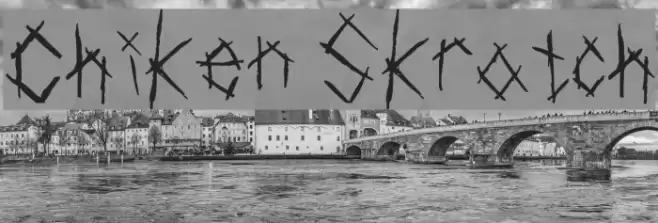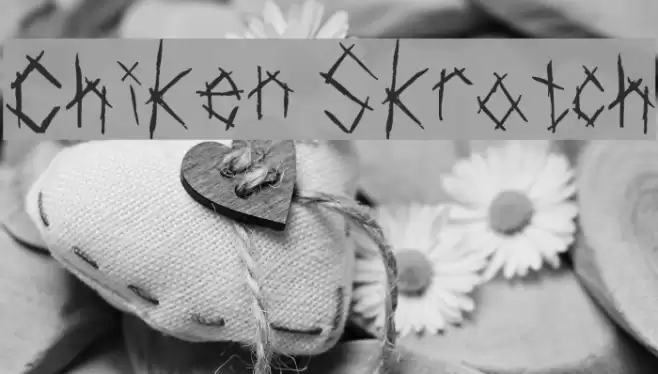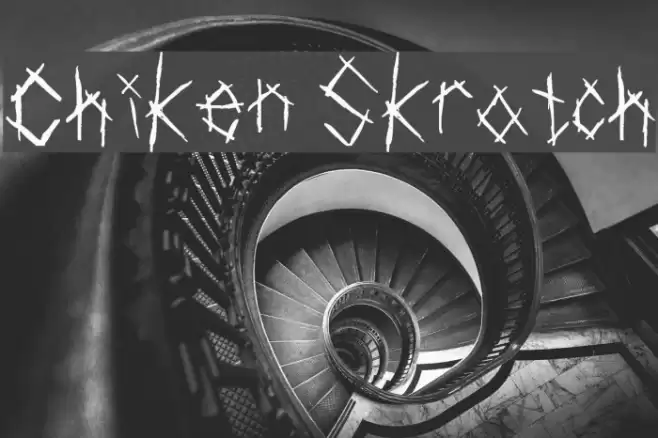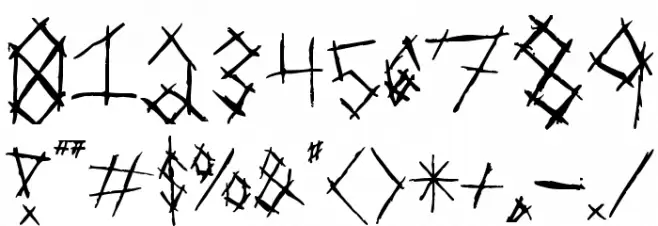
Chiken Skratch Font
Chiken Skratch Description
This font features a unique, hand-drawn style that resembles rough, scratchy lines, giving it a raw and edgy appearance. The characters are irregular and jagged, with varying stroke thicknesses that create a sense of movement and energy. The uppercase and lowercase letters maintain a consistent style, with sharp angles and uneven edges that contribute to its distinctive look. Numbers and special characters follow the same aesthetic, making the font cohesive across all elements. This font's unconventional design makes it stand out, ideal for projects that require a bold and artistic touch.
A raw, edgy font with scratchy, hand-drawn lines and irregular, jagged characters from Uncategorized fonts.
- Proposed Projects: Ideal for album covers, posters, graffiti art, and any project needing a bold, artistic flair.
- Contrast: High
- Use Case: Logos, Headlines, Artistic projects